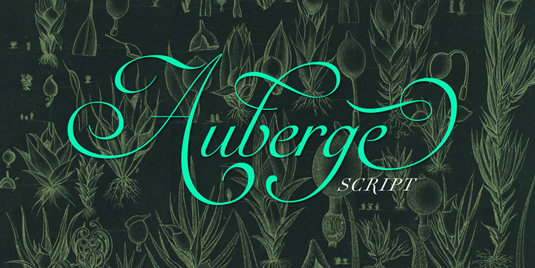
Font of the day: Auberge Script
Auberge Script by Alejandro Paul
Auberge Script was created by Alejandro Paul of Sudtipos. "Multiple sources usually help me get a better perspective on the range of a specific script genre, so many books served as reference to this quill font of mine," Paul comments on MyFonts. "Late 17th century French and Spanish professional calligraphy guides were great aides in understanding the ornamental scope of what the scribes were doing back then.
"The French books, with their showings of the Ronde, Bâtarde and Coulée alphabets, were the ones I referenced the most. So I decided to name the font Auberge, a French word for hotel or inn, because I really felt like a guest in different French locales (and times) when I going through all that stuff."